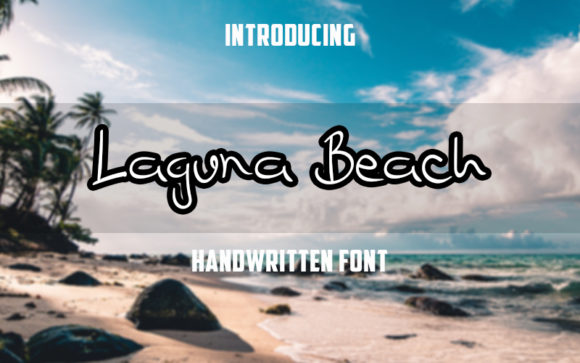
Journey into the captivating realm of Laguna Beach Font, a masterpiece crafted by Graph Arts, where elegance meets versatility like never before. Step into a world where your designs dance with a touch of delicate charm, effortless sophistication, and undeniable allure.
Immerse yourself in the meticulously crafted curves and swirls of Laguna Beach, a script font that beckons you to explore its boundless creative potential. Its friendly and approachable demeanor makes it the perfect companion for a multitude of design endeavors, effortlessly elevating your projects to new heights of visual appeal.
Whether you're a seasoned design professional or just starting your creative journey, Laguna Beach Font is your steadfast ally, guiding you towards design excellence. Its intuitive nature makes it a joy to use, allowing you to effortlessly breathe life into your ideas, transforming them into tangible works of art that captivate and inspire.
With Laguna Beach Font, your legal letterheads will radiate an air of professionalism and elegance. Its graceful characters lend a touch of sophistication that commands attention, ensuring your documents stand out from the ordinary. Experience the transformative power of Laguna Beach as it elevates your legal correspondence to the pinnacle of visual impact.
But Laguna Beach's versatility extends far beyond the realm of legal documents. Its enchanting charm seamlessly adapts to an array of creative endeavors, from heartfelt invitations and enchanting wedding stationery to captivating social media graphics and eye-catching marketing materials.
Unlock your creative potential and let Laguna Beach Font guide you on a journey of endless possibilities. Explore the depths of its versatility, allowing your imagination to flourish as you create designs that resonate with beauty, grace, and timeless appeal. Embrace the magic of Laguna Beach Font and elevate your designs to new heights of excellence.